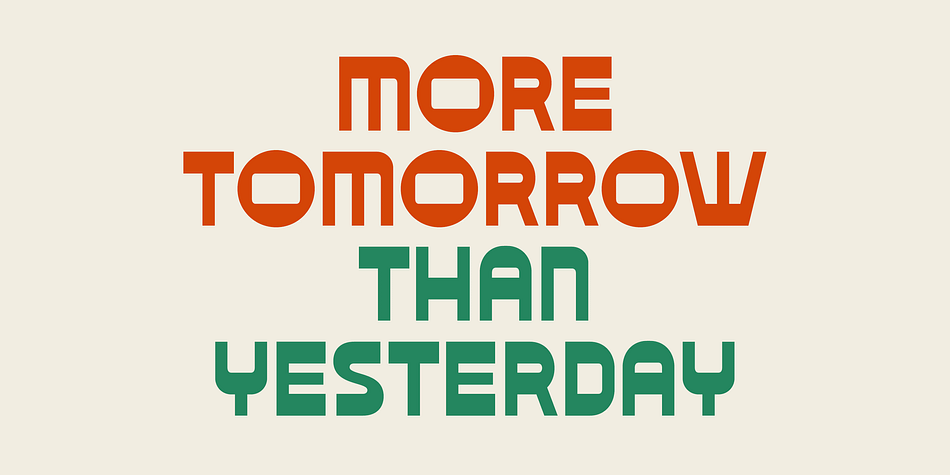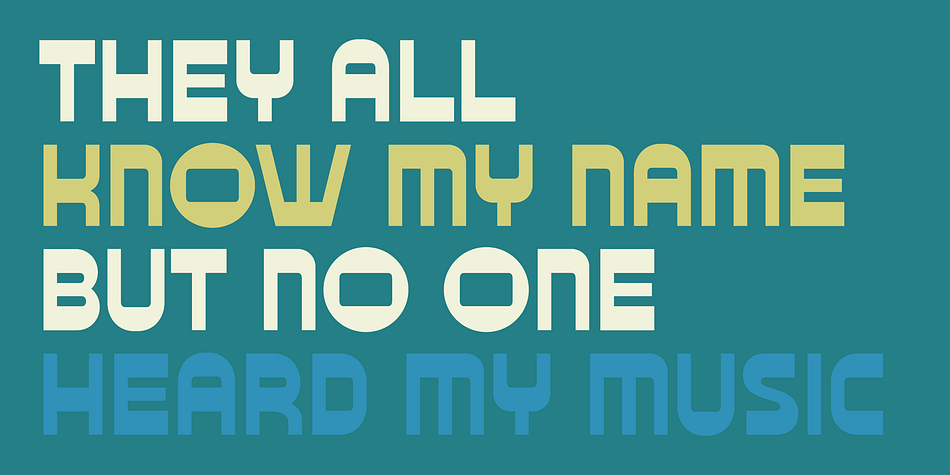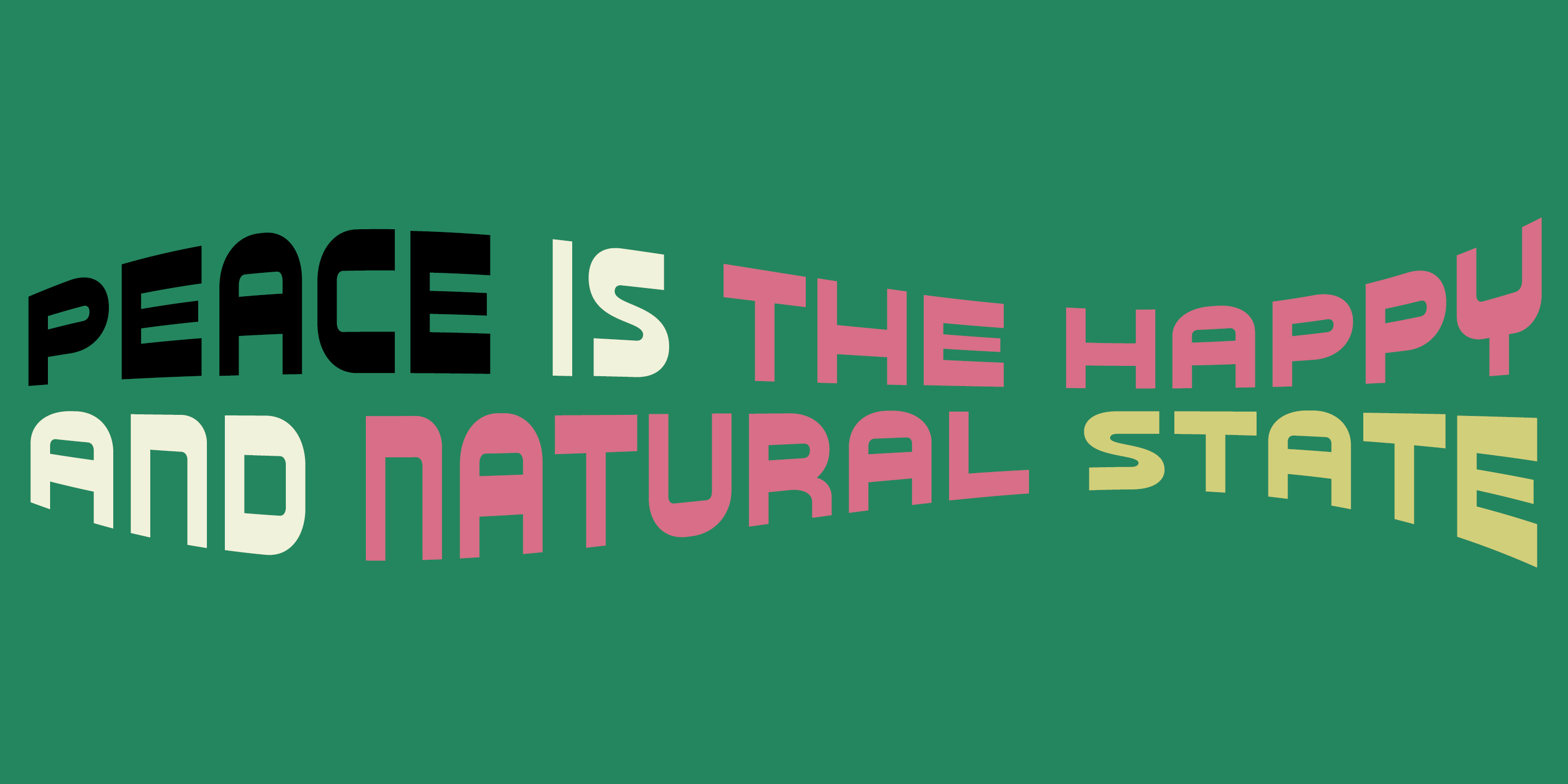
Word From Radio is a novelty font published by Dharma Type.
Based on retro vinyl records in the middle of 20th century. the mixture of funky, hippie and mid-century’s futuristics.